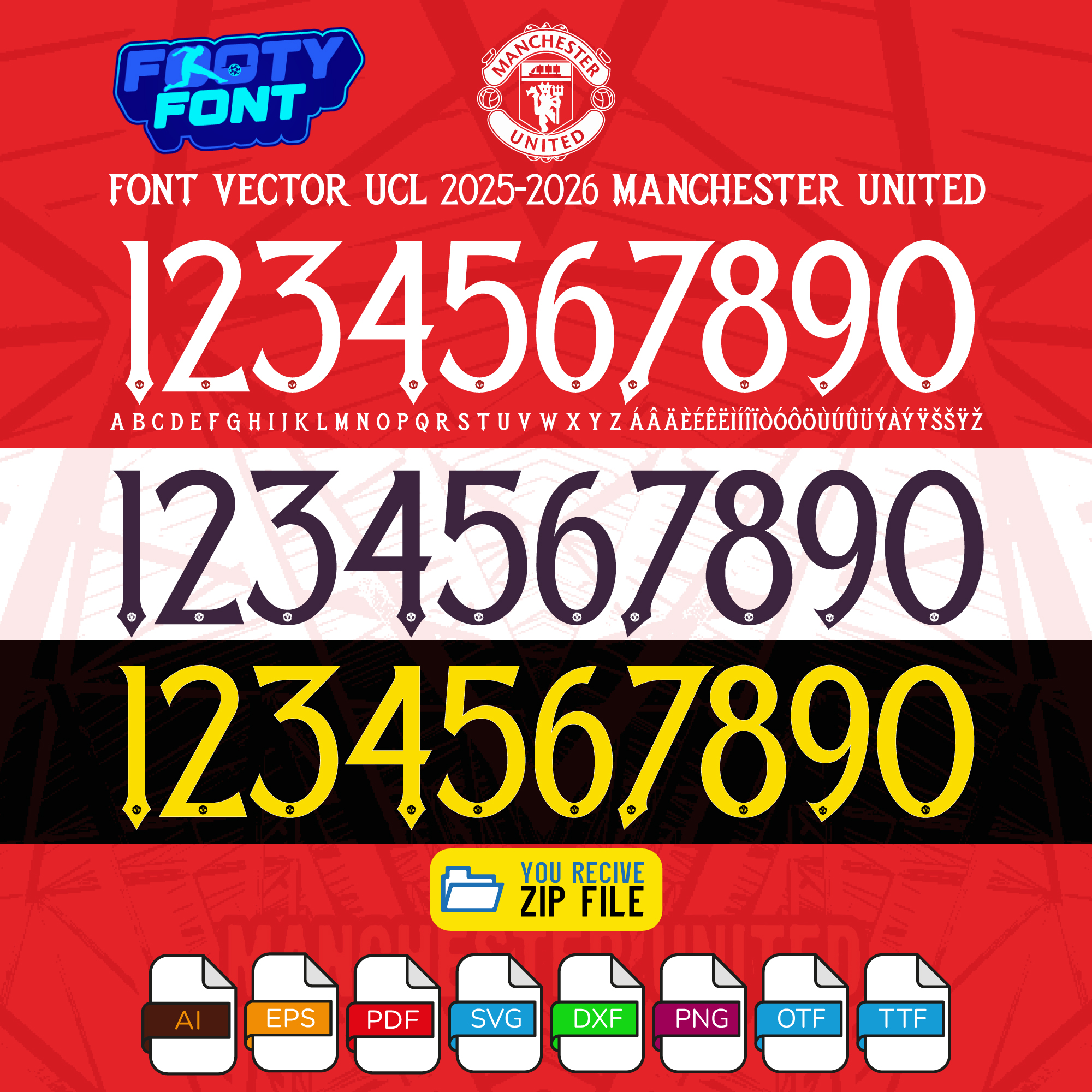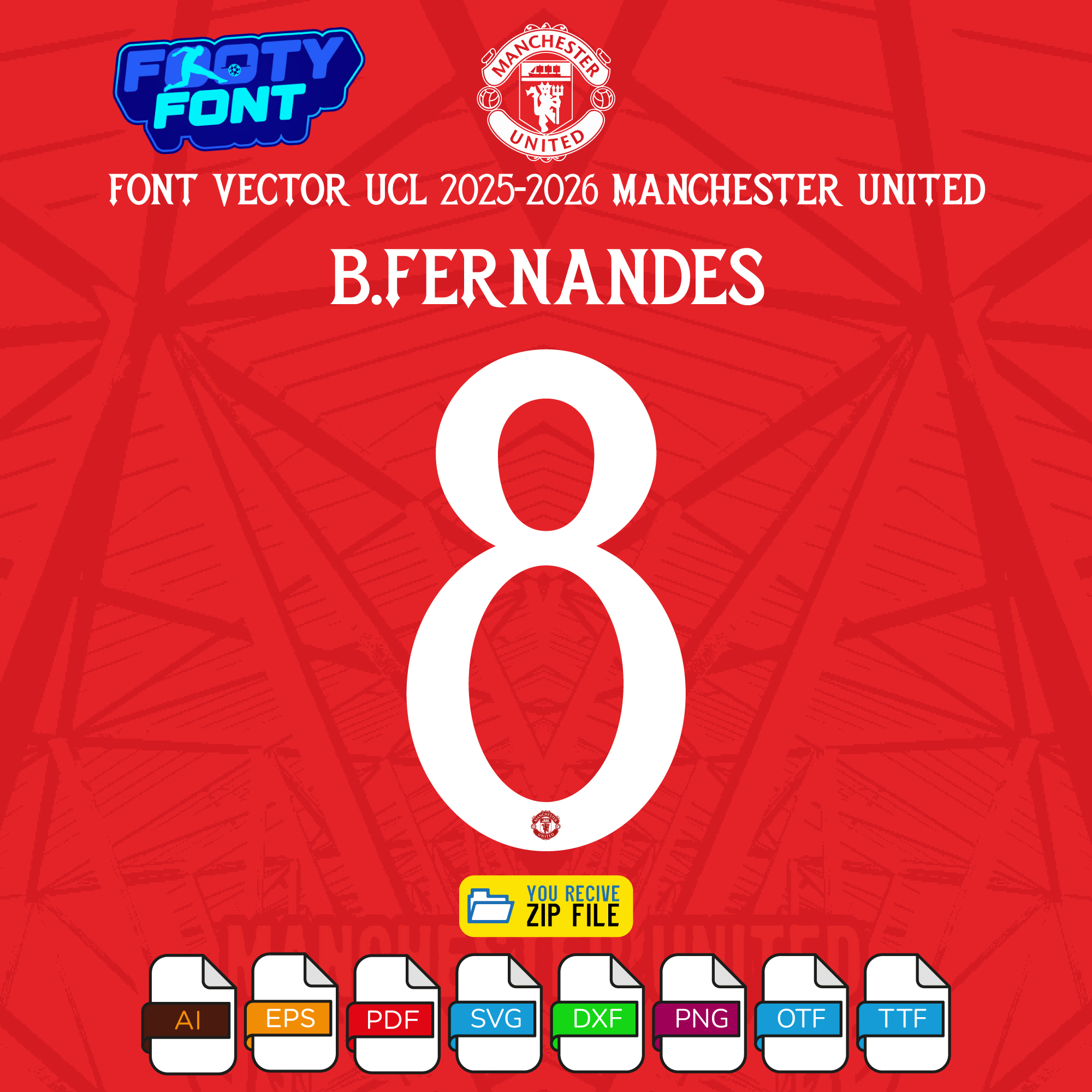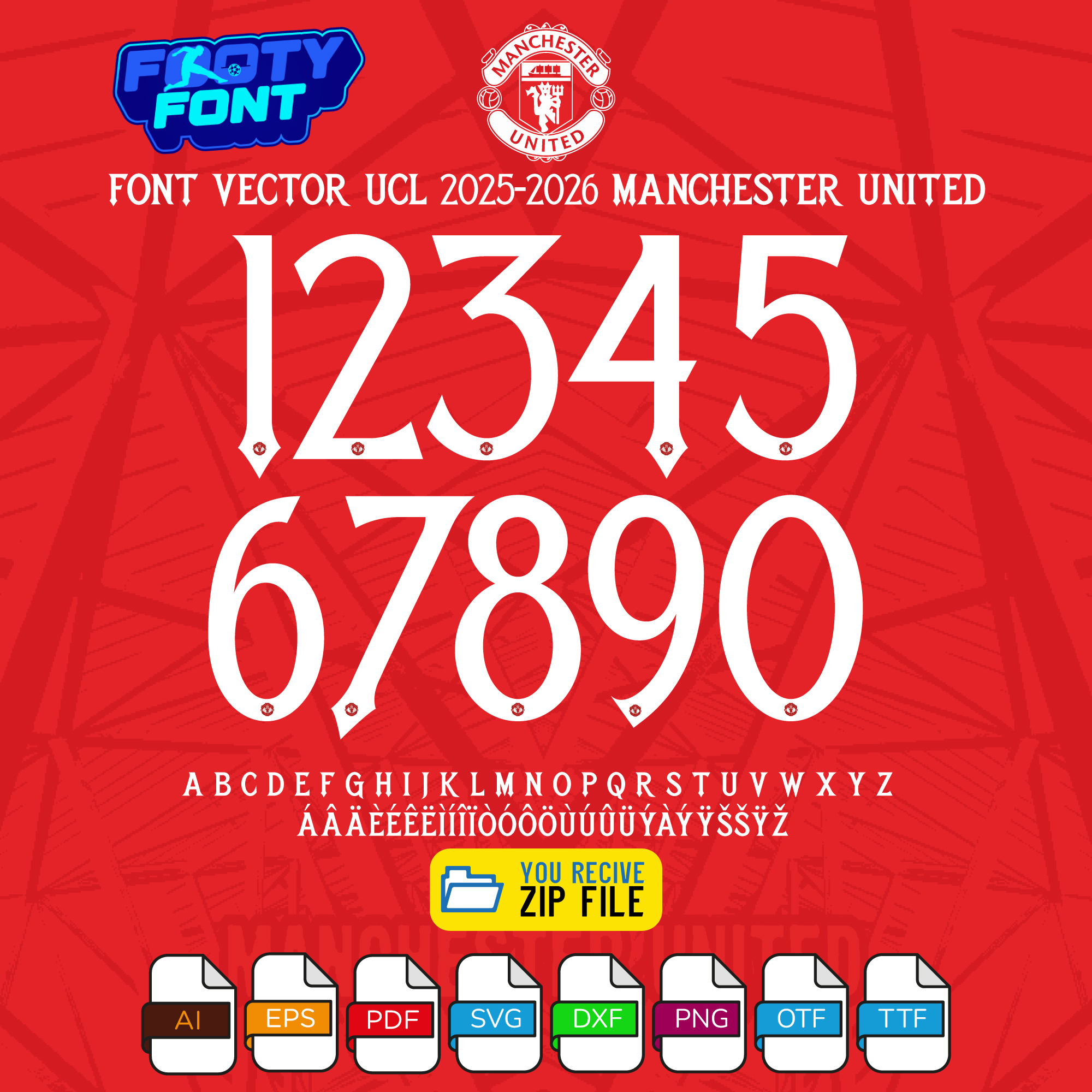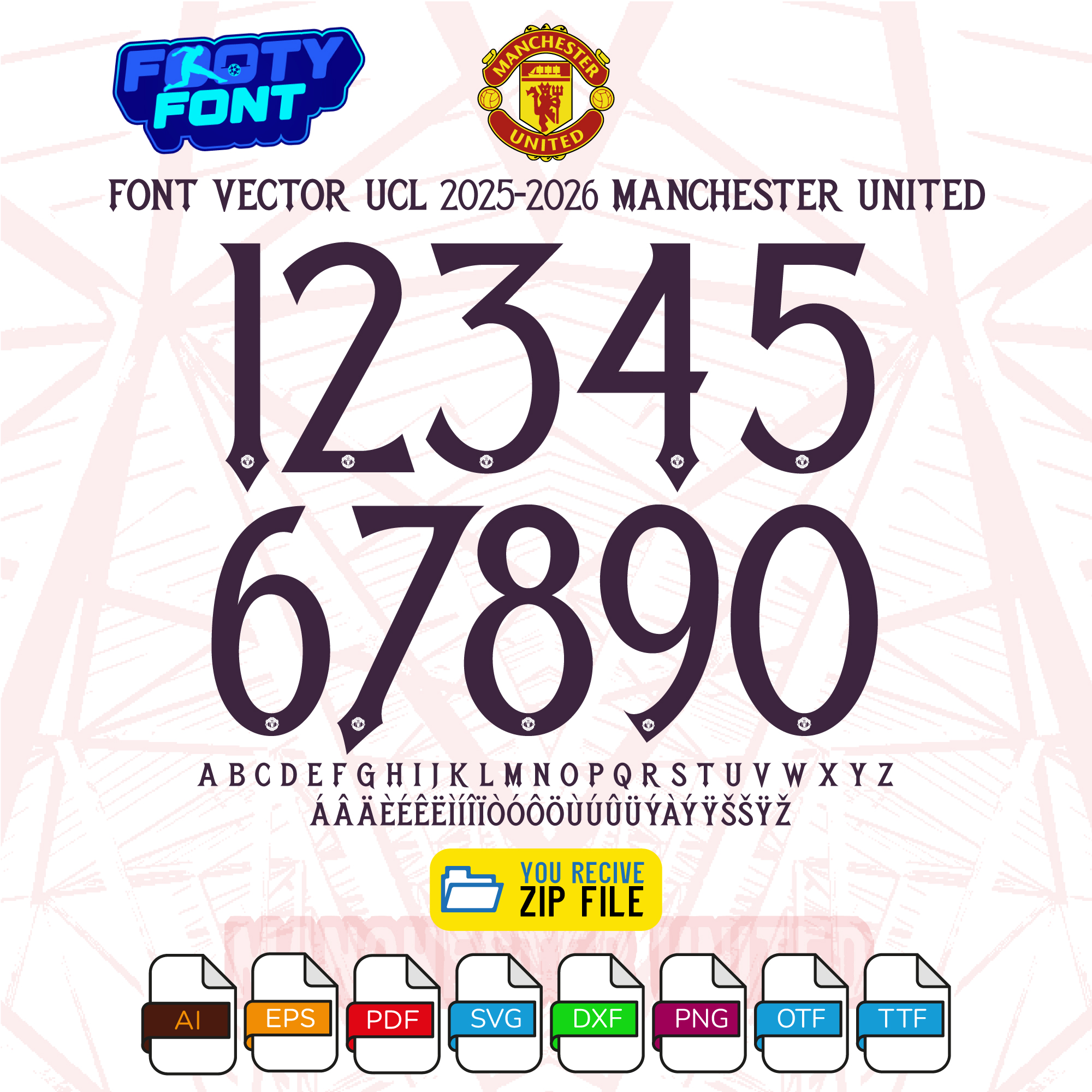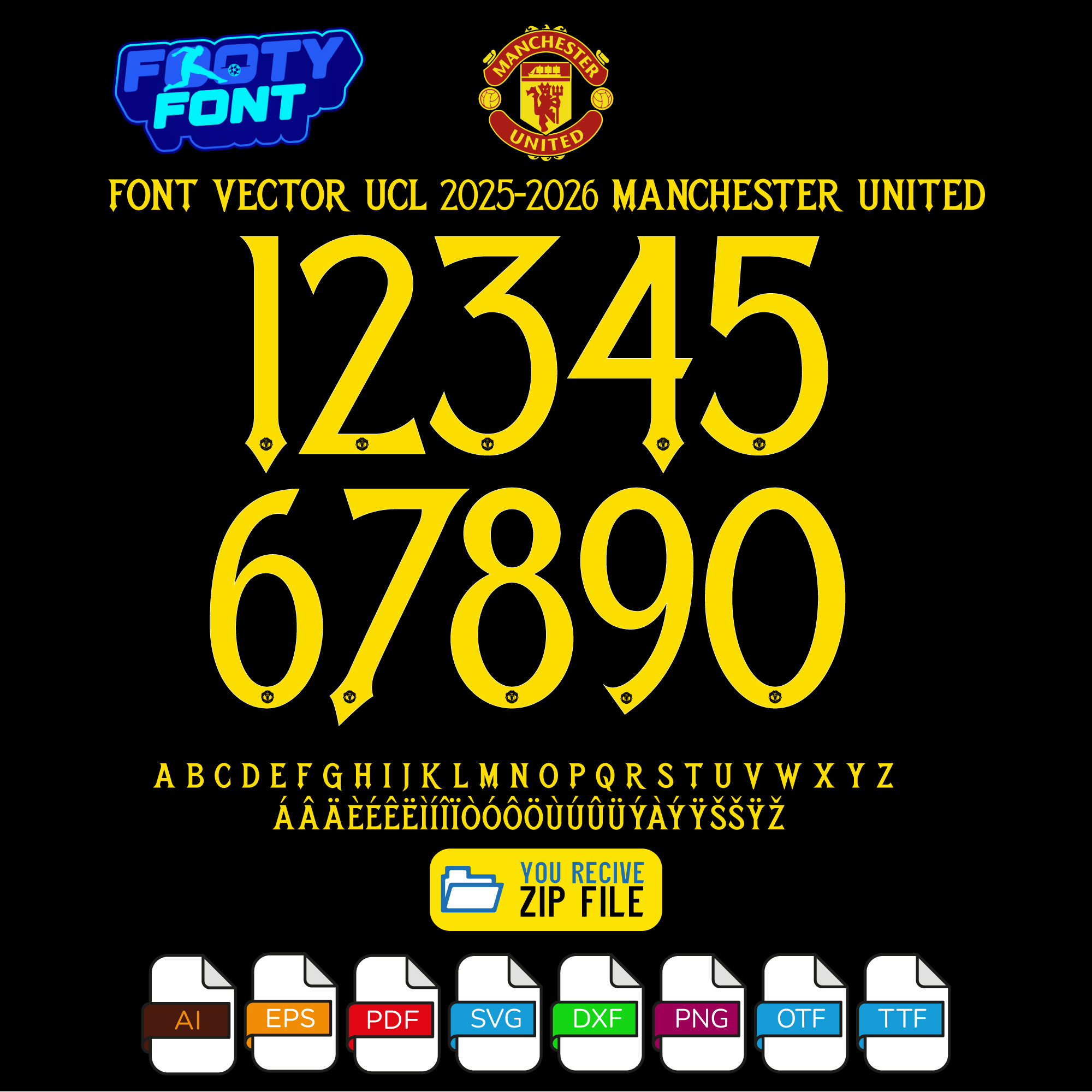
About the Manchester United 2025-2026 Football Font
Bring the glory of the Theatre of Dreams to your designs with this complete font collection, inspired by the Manchester United 2025-2026 UCL kits. This ultimate package features fan-made typefaces that replicate the look and feel of the Home, Away, and Third kits, giving you the complete set for the Red Devils’ entire European campaign.
This font captures the style worn by modern-day icons at Old Trafford like Bruno Fernandes, Benjamin šeško, Ugarte, and Kobbie Mainoo. It’s perfect for fans creating their own custom jersey designs for personal use, digital posters celebrating a famous victory, or any other project that shows your passion for Manchester United.
Use this font to bring the Red Devils’ style into your designs—whether for custom jersey graphics, fan merchandise, posters, or social media content.